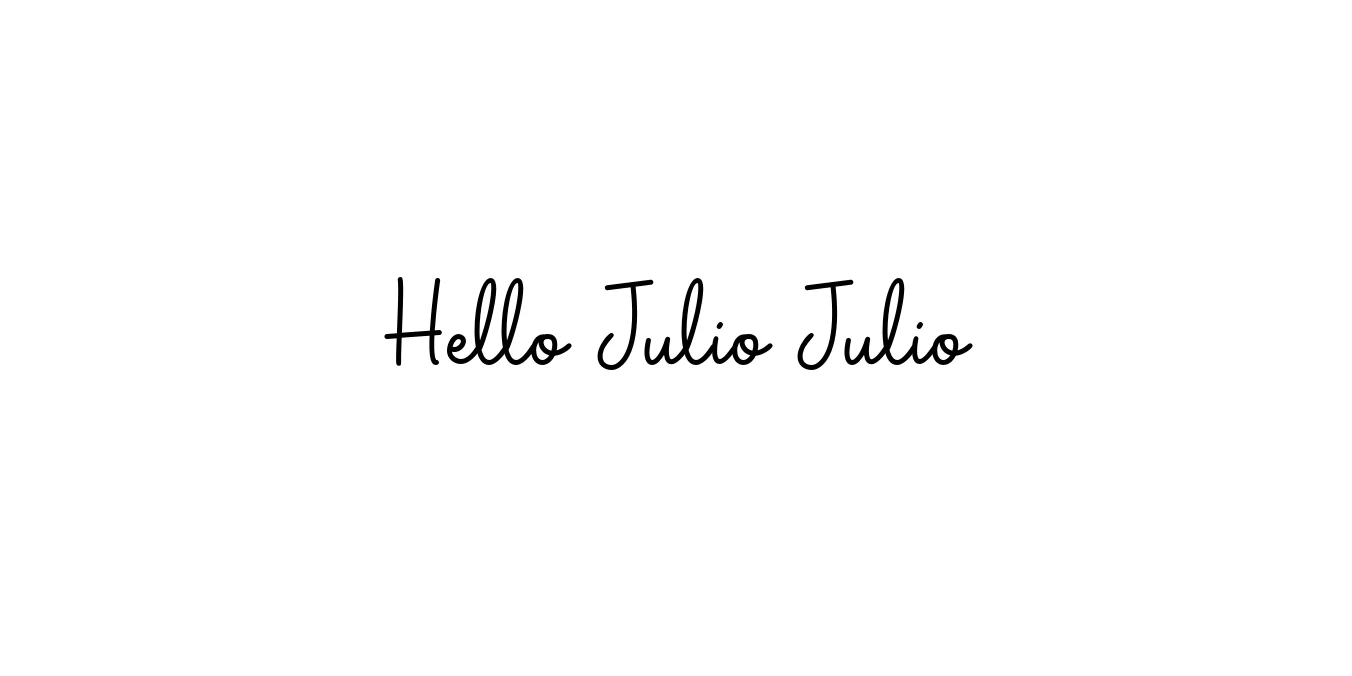
Hello Julio Julio
Hello Julio Julio is a charming and elegant script font meticulously crafted by Letterena Studios. This typeface features a fluid, handwritten style that masterfully balances professional sophistication with a warm, personal touch, making it an ideal choice for modern design projects that seek to convey intimacy and grace.
Released as a standout entry in contemporary calligraphy, Hello Julio Julio has gained significant traction for its smooth swashes and versatile character set. It is frequently employed in high-end wedding stationery, luxury branding, and editorial layouts, where its unique aesthetic helps create a memorable and authentic visual identity for diverse creative audiences.
Hello Julio Julio Best Uses
Perfect for creating romantic and elegant invitation suites.
Adds a personalized, boutique touch to Instagram quotes and lifestyle posts.
Ideal for logo designs in the beauty, fashion, and lifestyle industries.
Excellent for heartfelt personal messages and seasonal holiday cards.